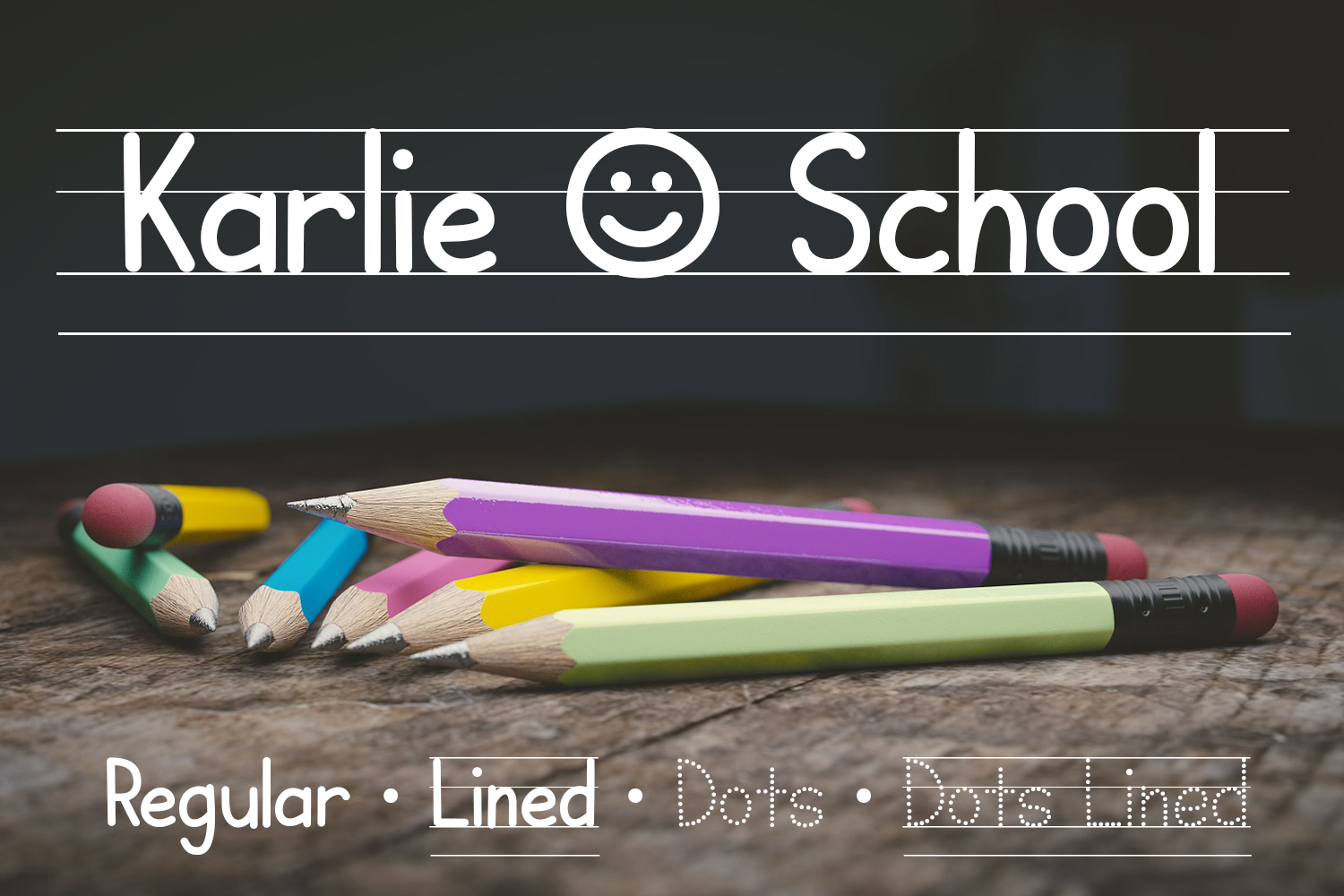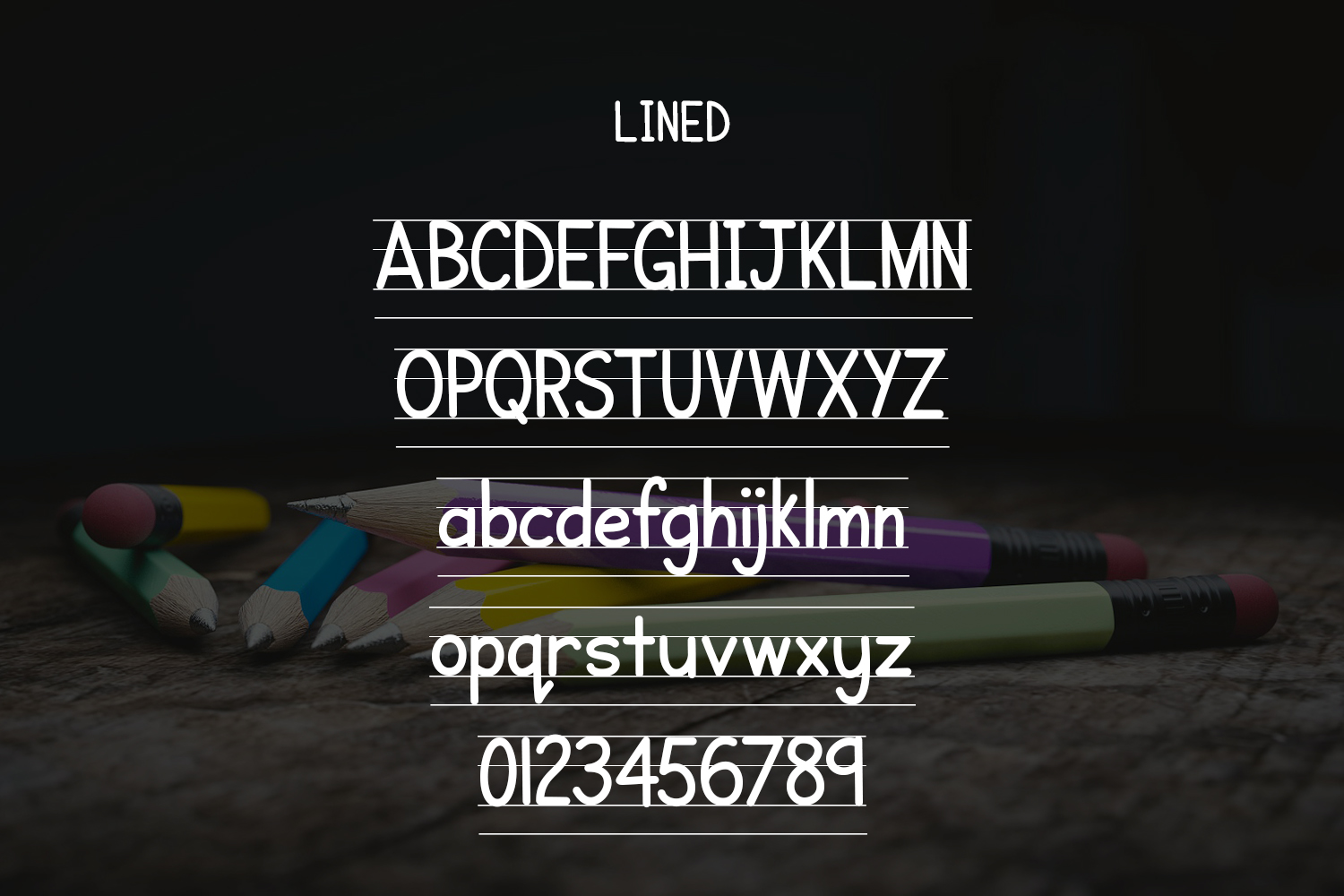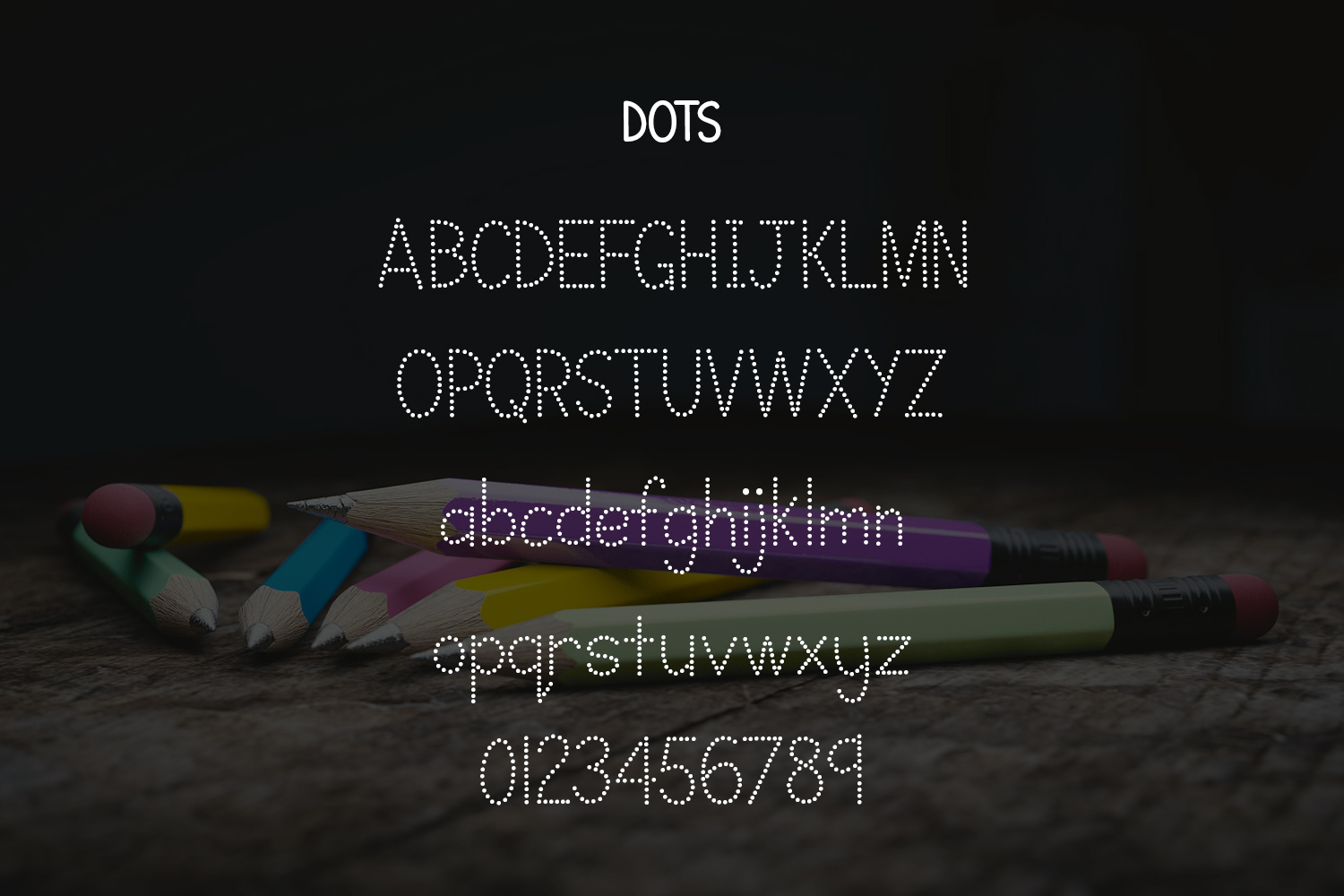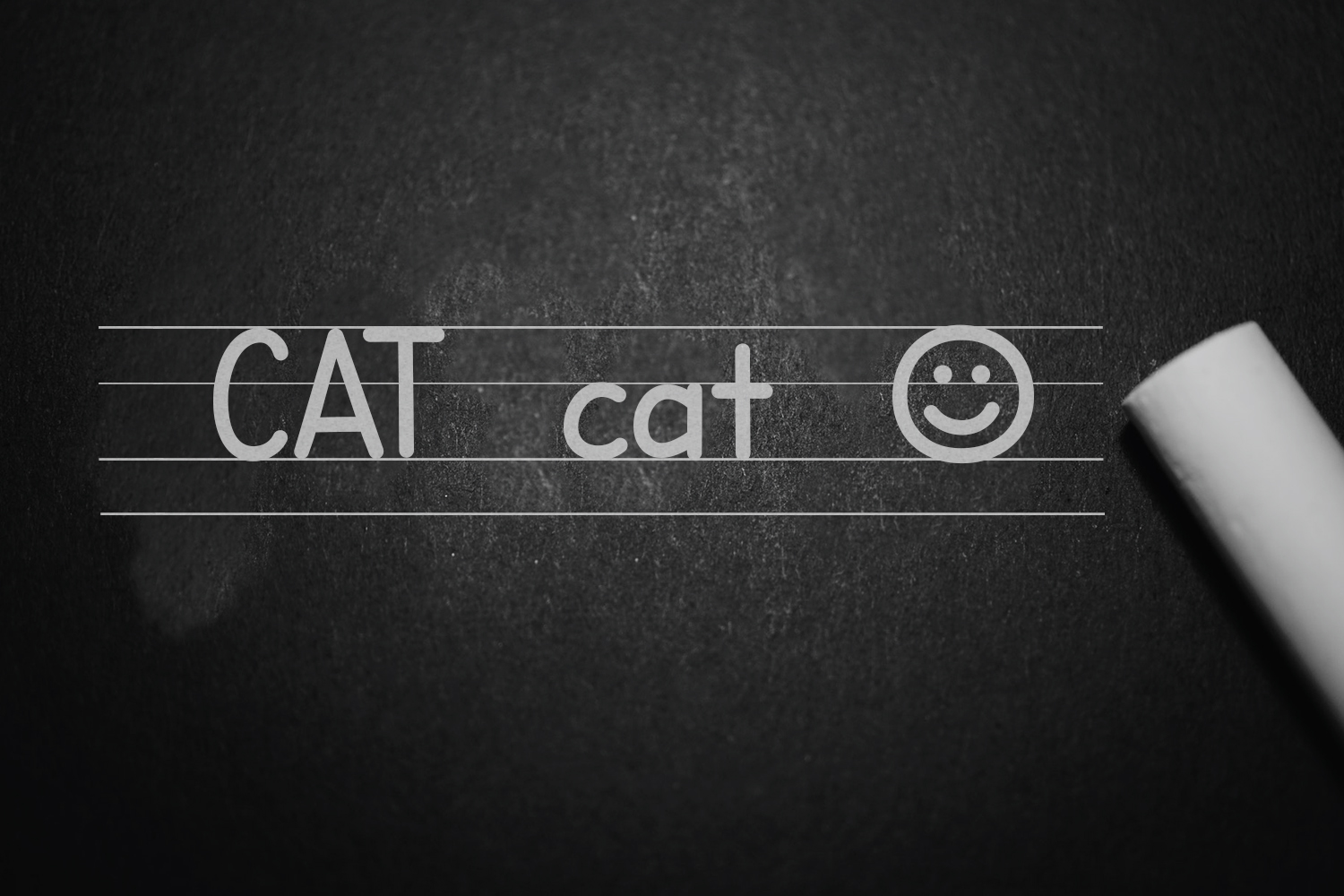
Karlie School is made for teaching children how to write. You can use the basic handwriting font, the dotted tracing font, or use the versions with built-in guidelines to make creating worksheets easier! Karlie School was designed especially for one of the typographer’s family members, a teacher who couldn’t find any fonts specific to her needs when teaching her students to write.